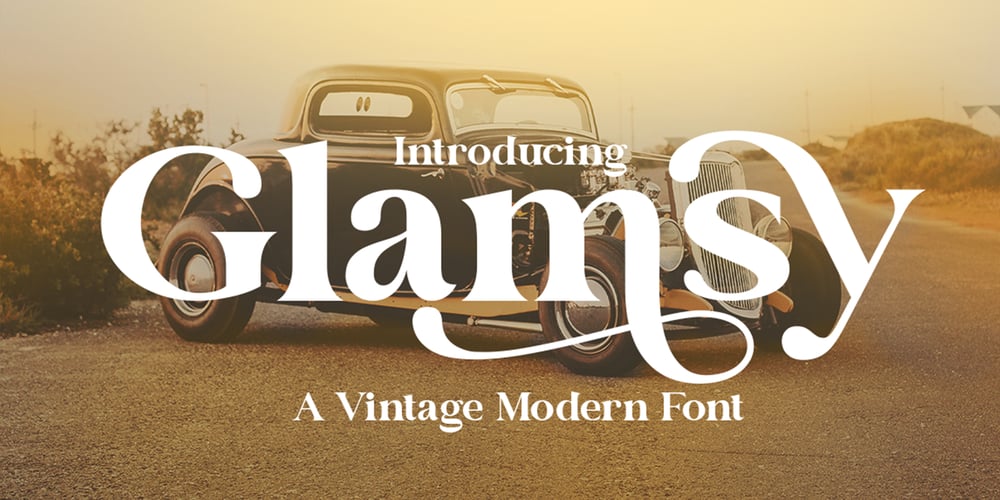
Glamsy Font Family was designed by Heri Imanudin and published by Krafted. Glamsy contains 1 styles and family package options. Wish to give your design that vintage and classy look? Great fonts inspire emotion, and choosing the right one will push your brand in the right direction.Introducing Glamsy – A Vintage Modern Font.From merch and printed materials to websites and social media campaigns, Glamsy is ready for any project. Try it out and see the impact that a chic font can make.What you’ll get: Multilingual & Ligature Support Full sets of Punctuation and Numerals Compatible with: Adobe Suite Microsoft Office KeyNote Pages Software Requirements: The fonts that you’ll receive in the pack are widely supported by most software. In order to get the full functionality of the selection of standard ligatures (custom created letters) in the script font, any software that can read OpenType fonts will work. We hope you enjoy this font and that it makes your branding sparkle! Feel free to reach out to us if you’d like more information or if you have any concerns.